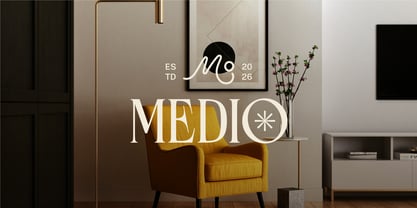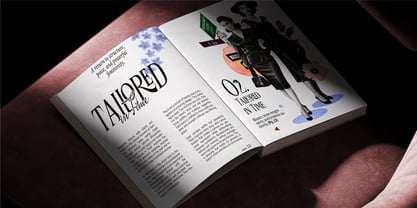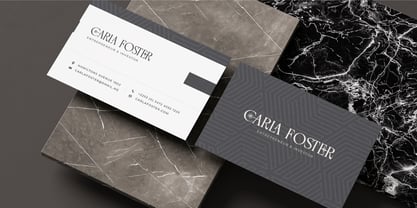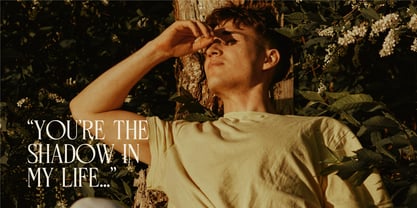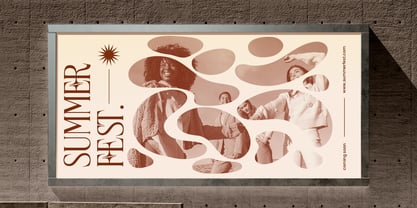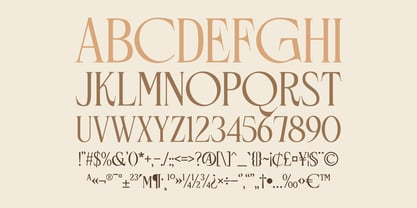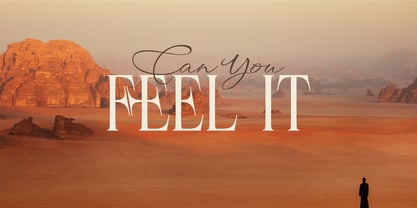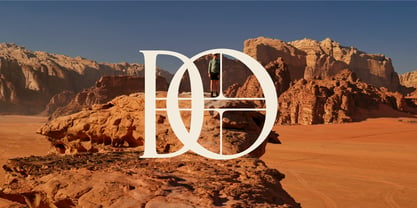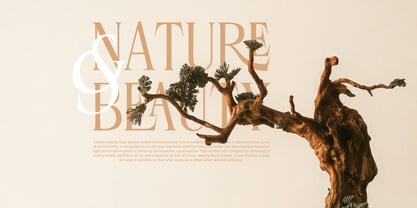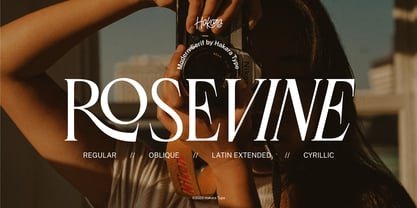
Rosevine
by Hakara Type
Rosevine is a contemporary serif typeface family crafted for refined visual communication. Its balanced proportions, crisp serif construction, and high contrast strokes create a confident yet graceful presence. The family features Regular and Oblique styles, providing typographic flexibility for sophisticated layouts. Rosevine supports extended Latin, Greek, and Cyrillic scripts, making it ideal for international publishing, corporate branding, and multilingual communication systems. This versatile typeface is perfect for luxury branding, editorial publishing, cultural institutions, packaging design, and corporate identities.
Designers: Kanisius Adi Klau
Foundry: Hakara Type